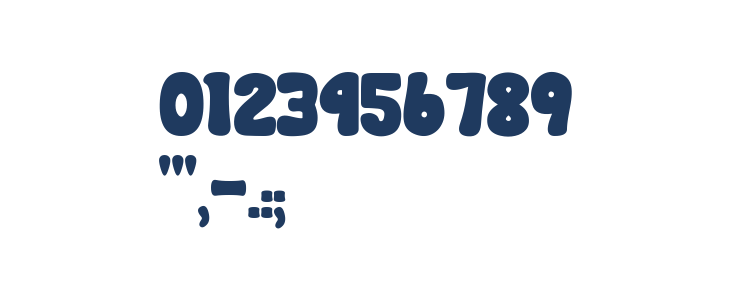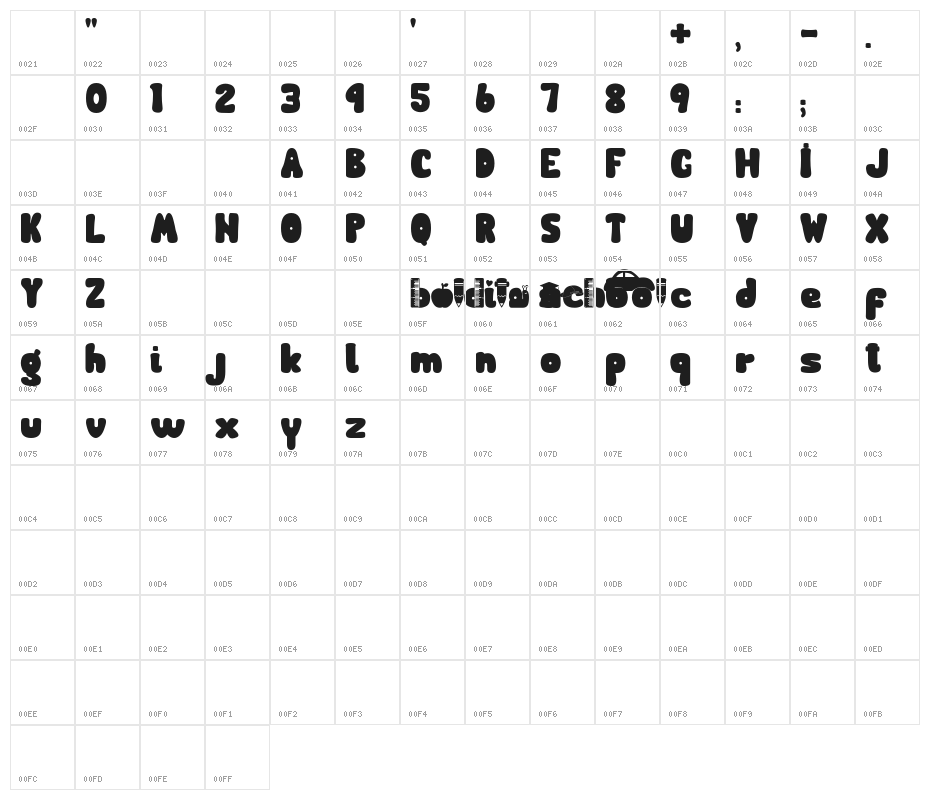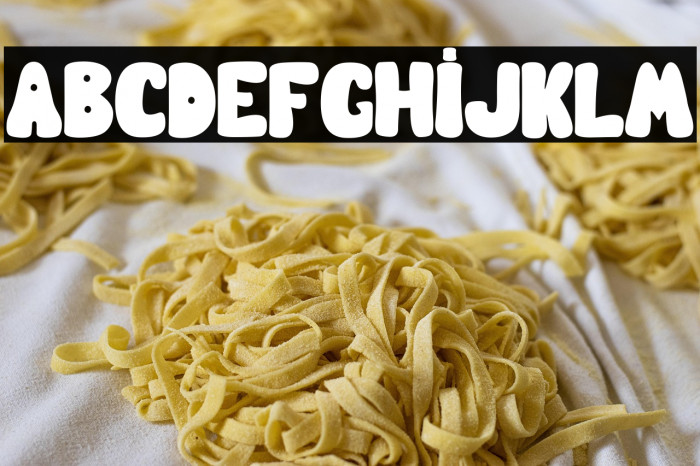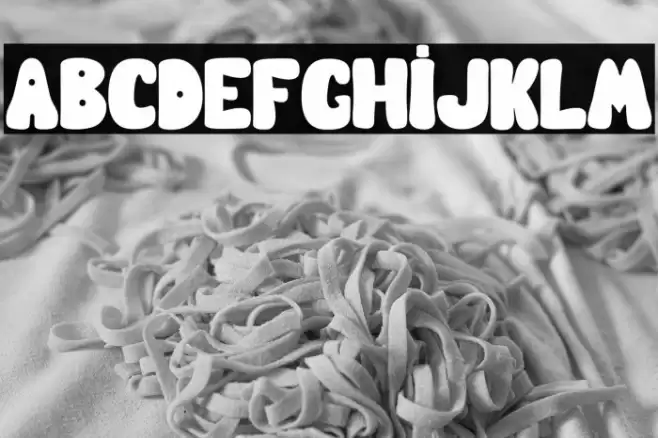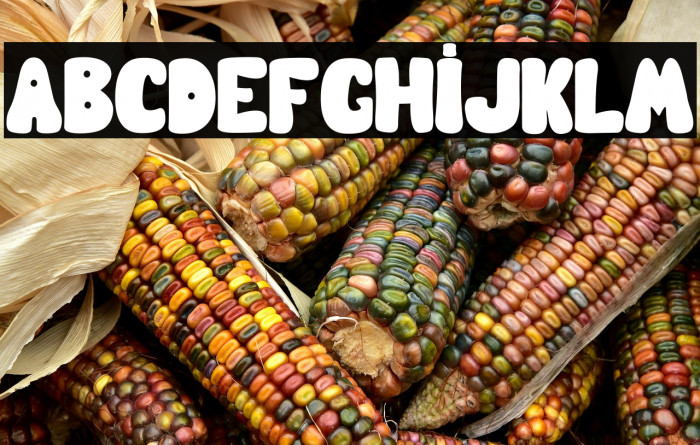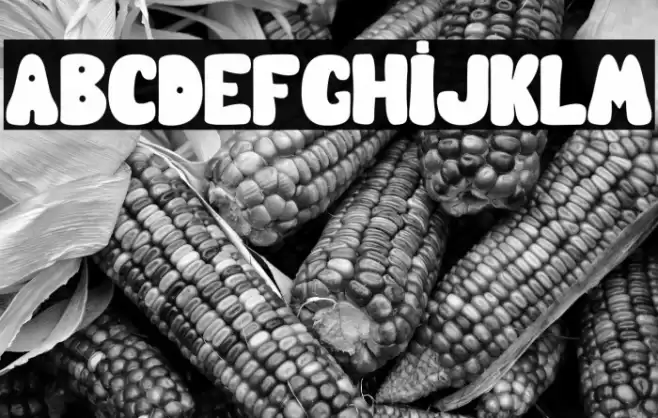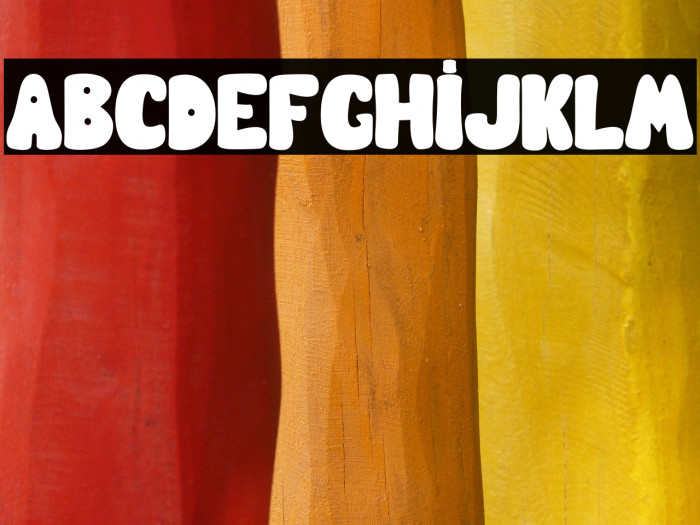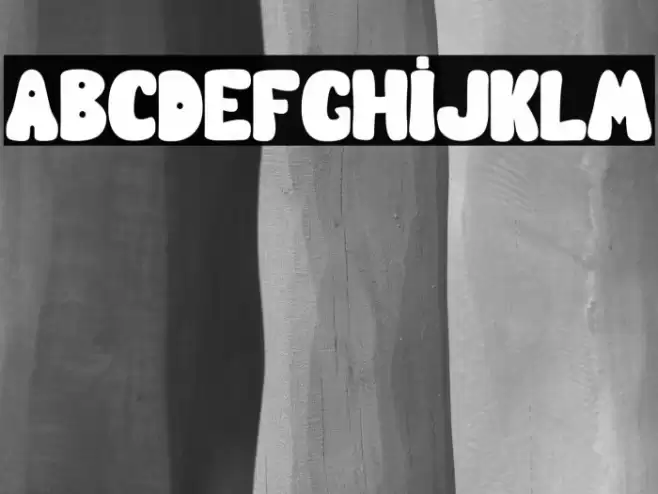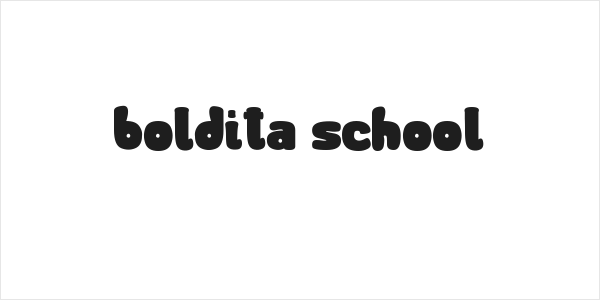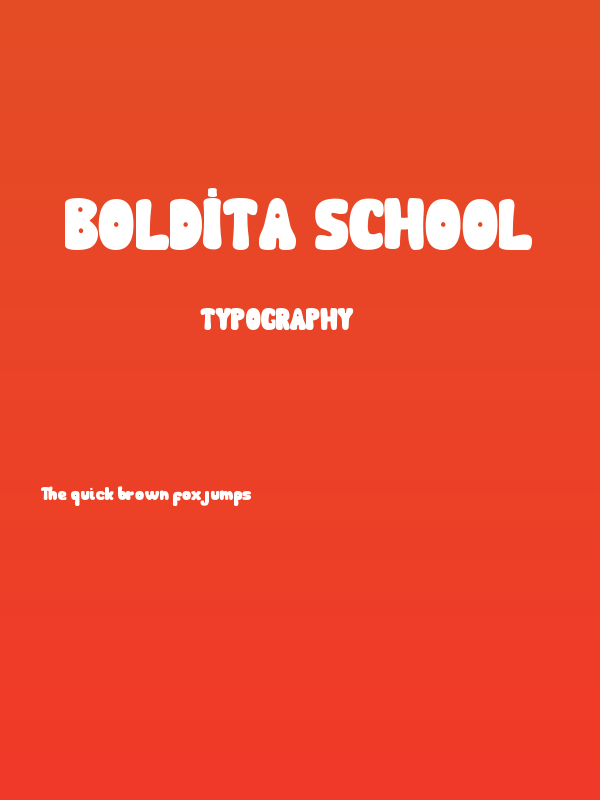
boldita school Font
boldita school Description
This playful and bold font features thick, rounded characters that exude a sense of fun and creativity. The letters are uniformly heavy, with a bubbly appearance that makes them stand out. The uppercase and lowercase letters maintain a consistent style, with rounded edges and a slightly condensed form. Numbers and special characters follow the same design principles, ensuring a cohesive look across all elements. This font's unique style is perfect for projects that require a touch of whimsy and boldness.
| Overall Style | Playful, Fun |
| Proposed Projects | Ideal for children's books, playful branding, posters, and creative projects that require a fun and bold typeface. |